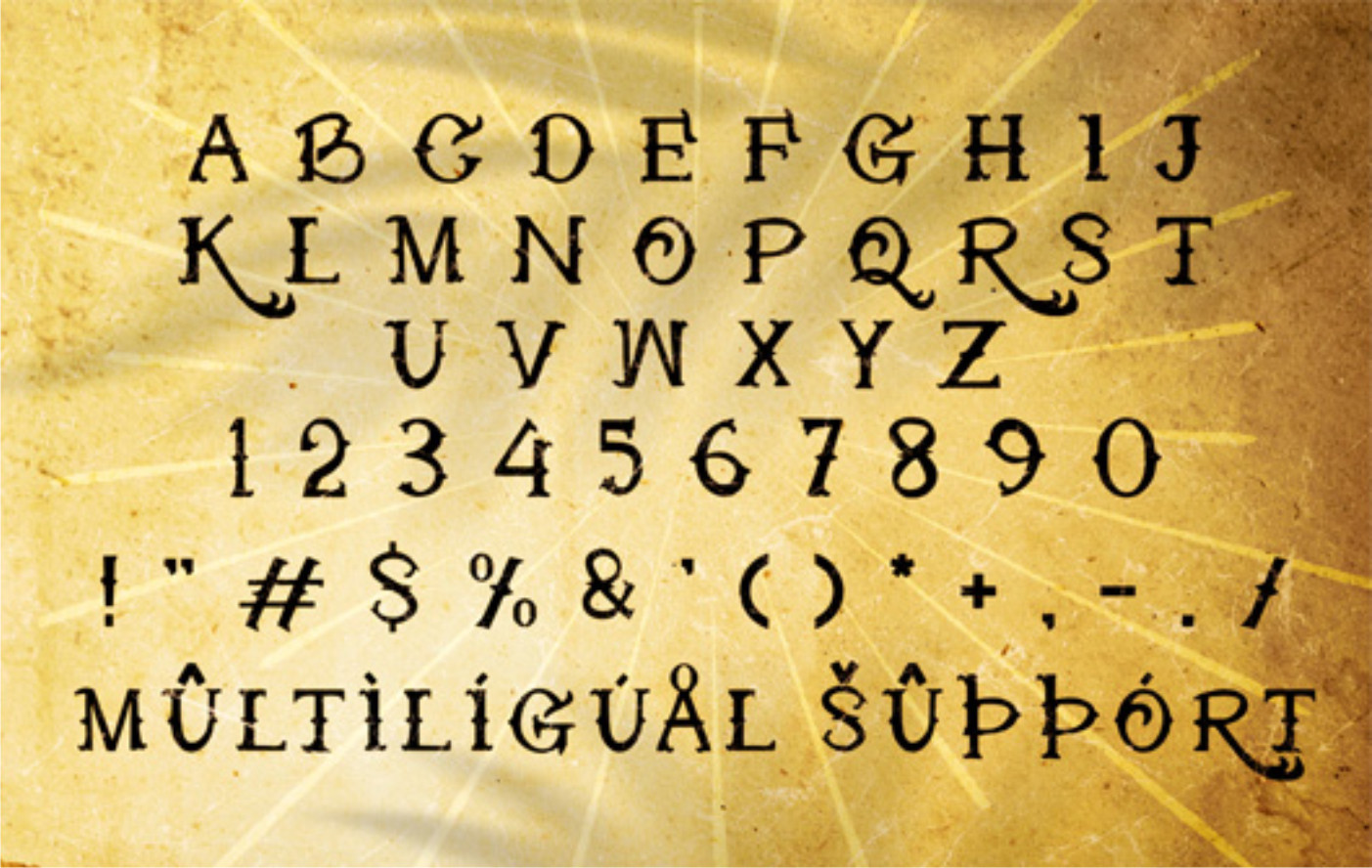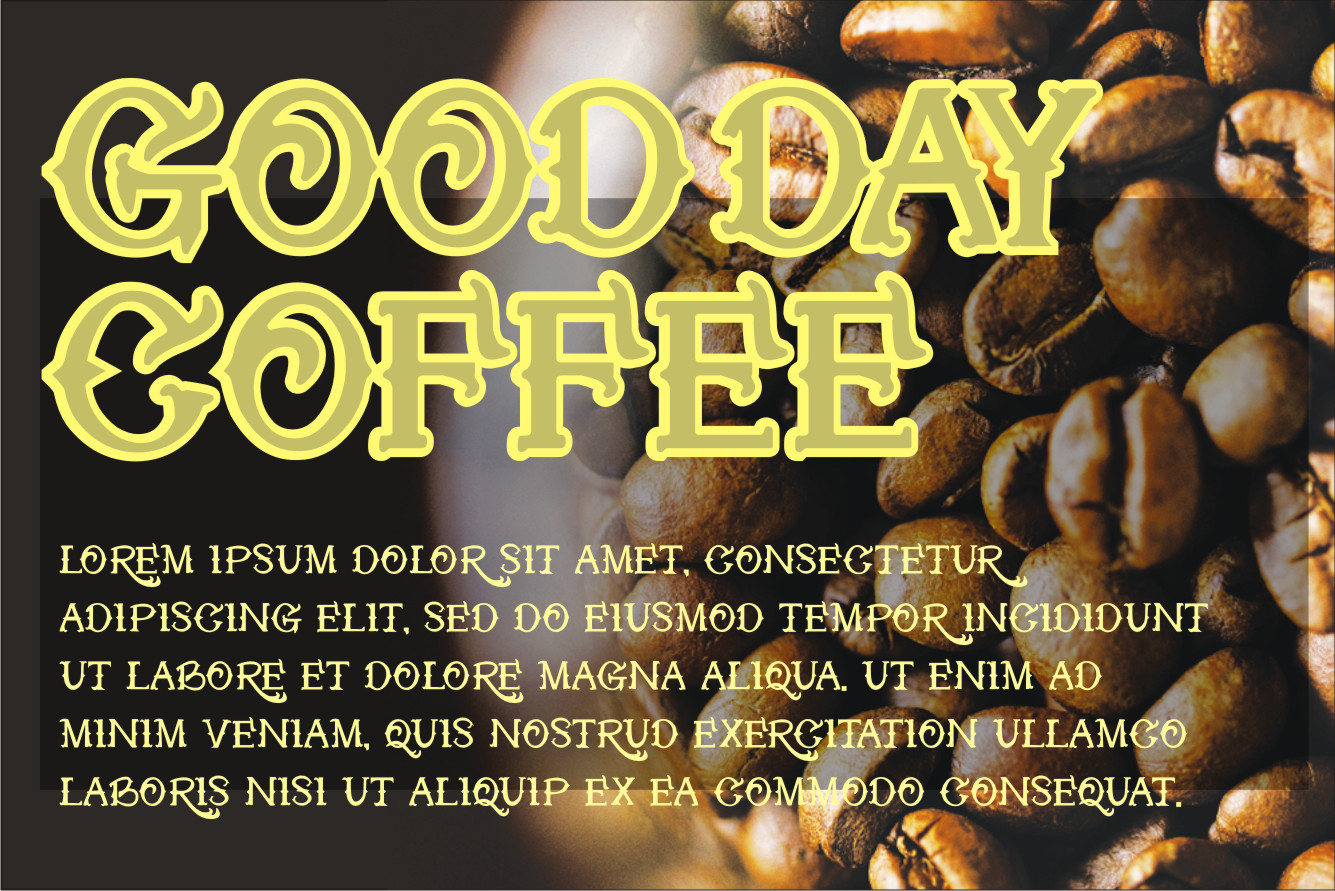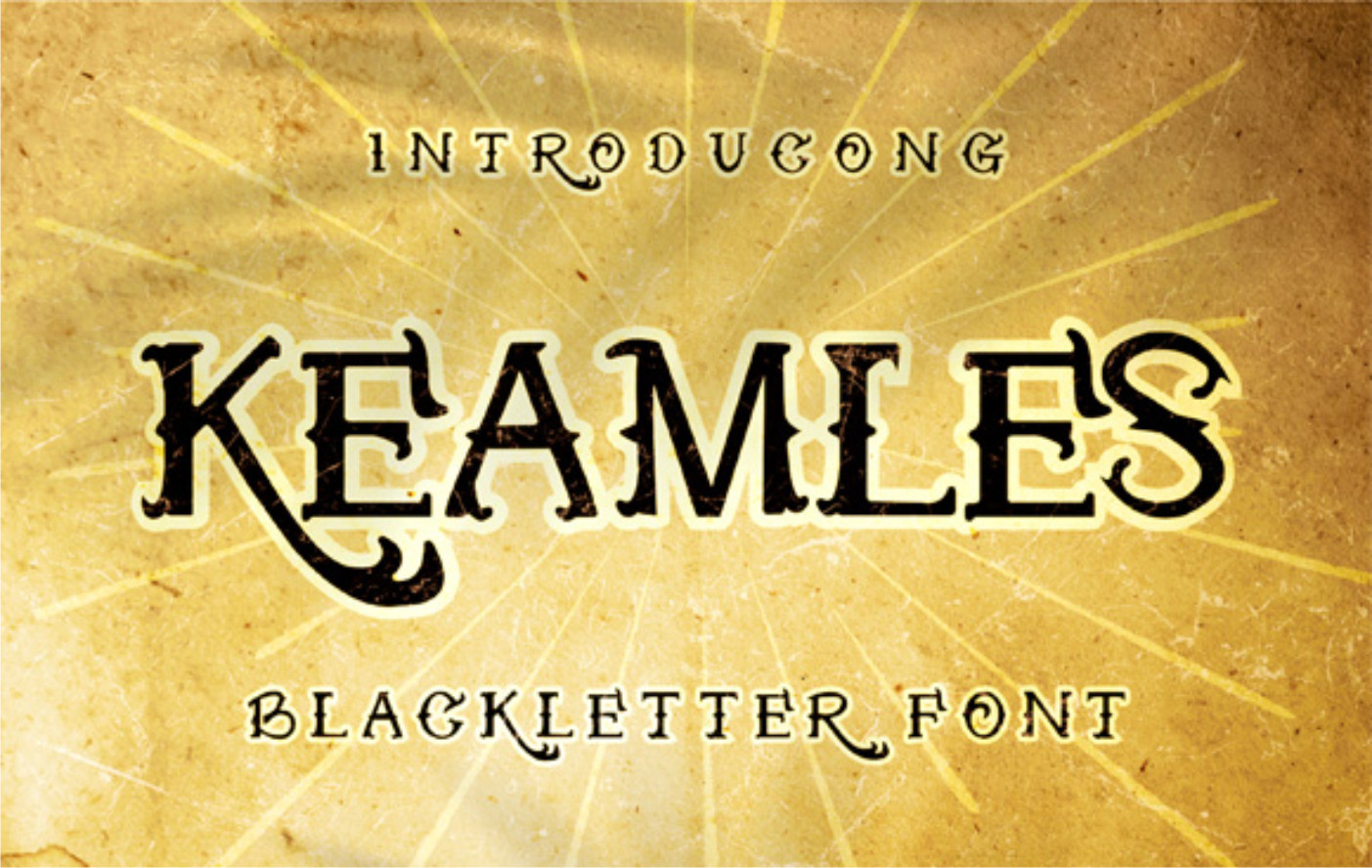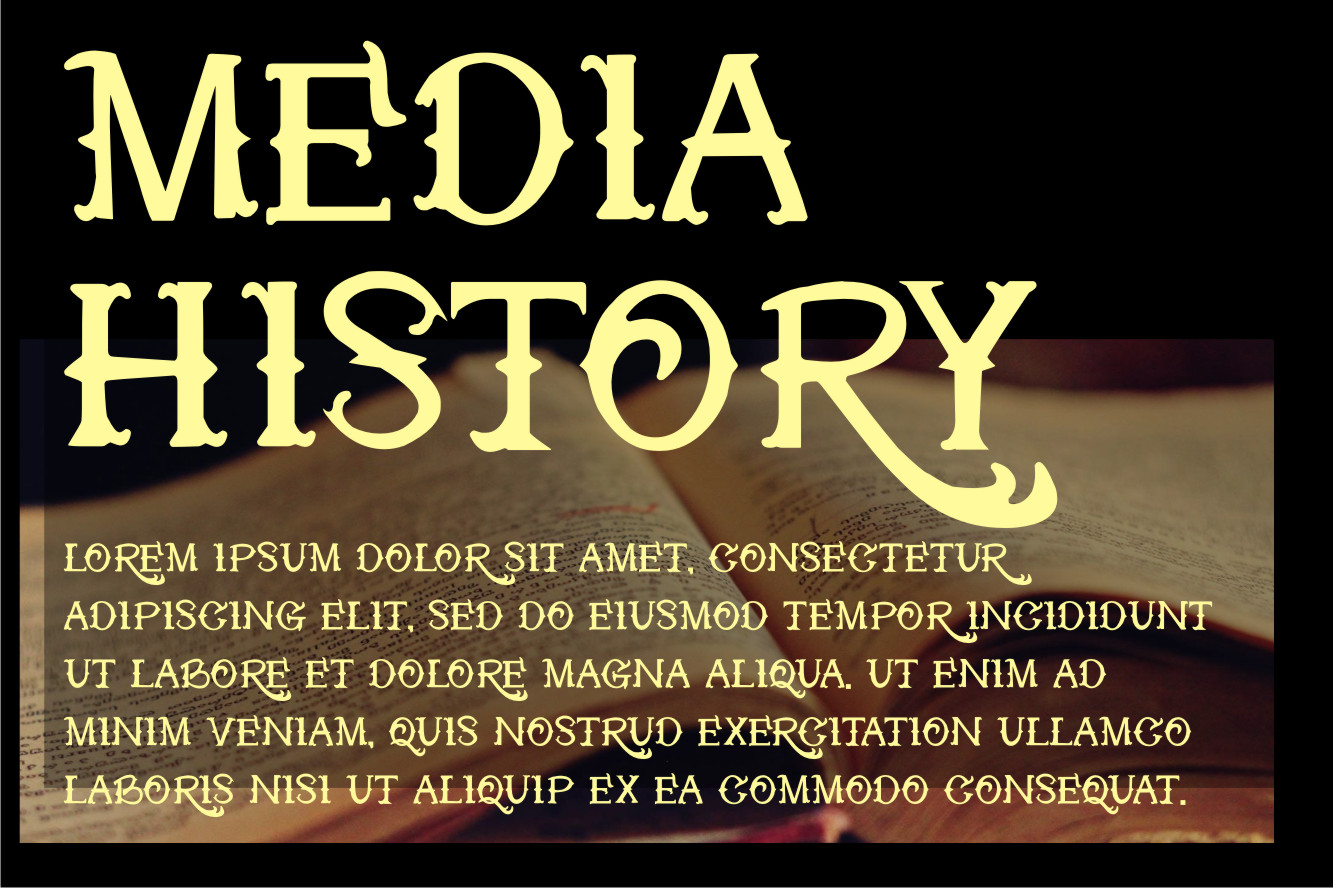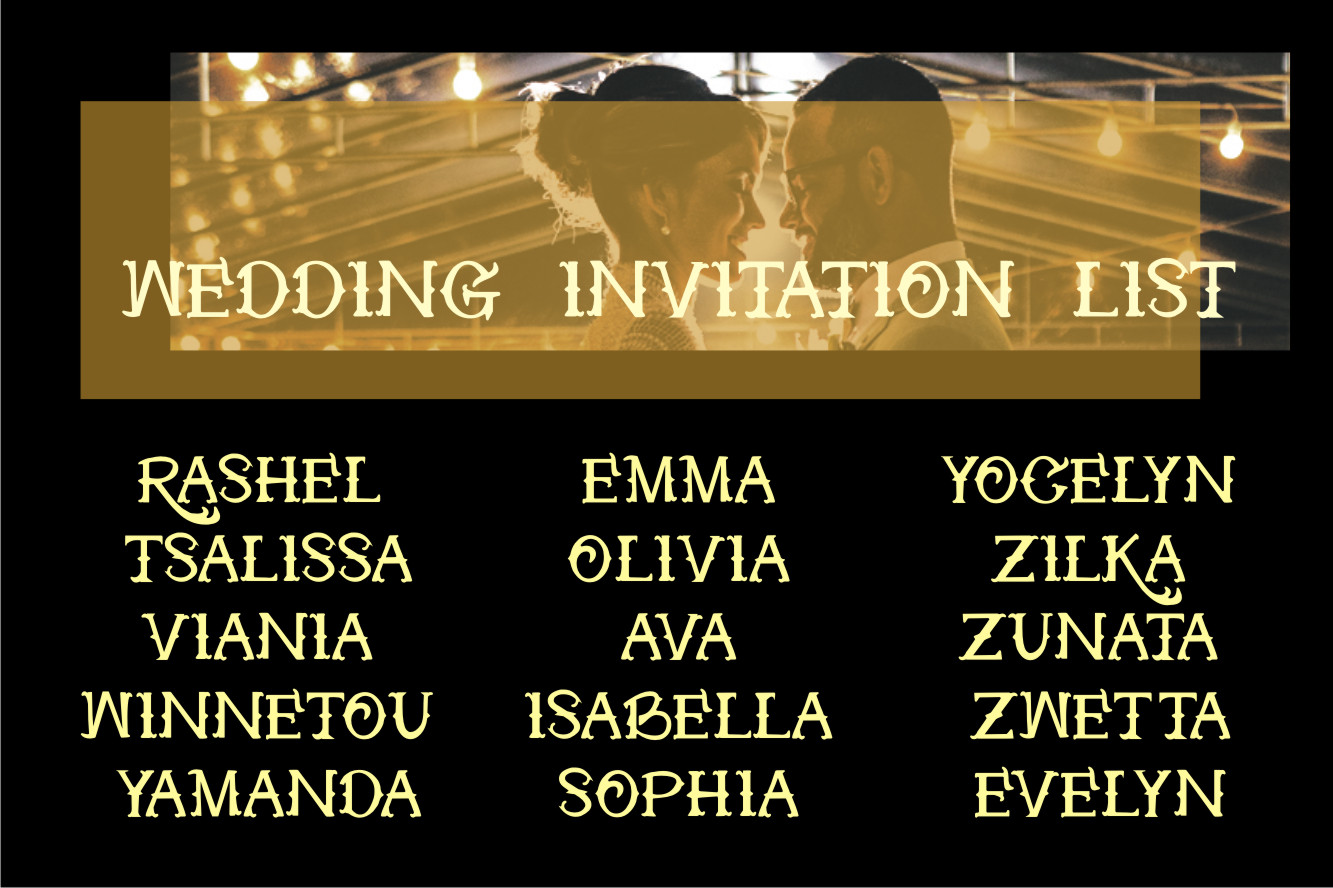
Keamles Font
Keamles Blackletter Font
This is a cool and neatly designed blackletter font. No matter the topic, this font will be an incredible asset to your fonts’ library, as it has the potential to elevate any creation.